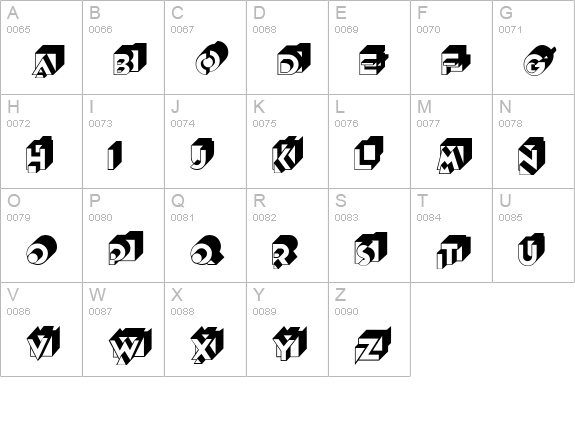
Knockout MF Initials Font Details
Introducing Knockout MF Initials font, a stunning display typeface that exudes elegance and sophistication. This font is perfect for any design project that requires a touch of class and luxury. The intricate details of the initials add a unique flair to your text, making it stand out from the crowd. Best of all, Knockout MF Initials font is completely free to download at FontsMarket.com. Whether you're working on invitations, branding, or any other creative endeavor, this font will elevate your design to the next level. Don't miss out on the opportunity to enhance your projects with this exquisite font. Download Knockout MF Initials now and let your creativity soar!